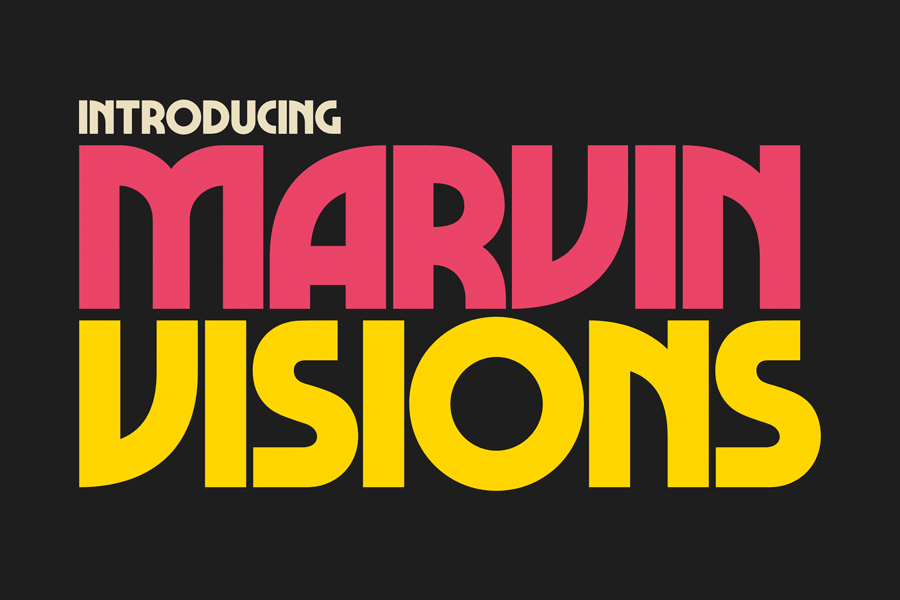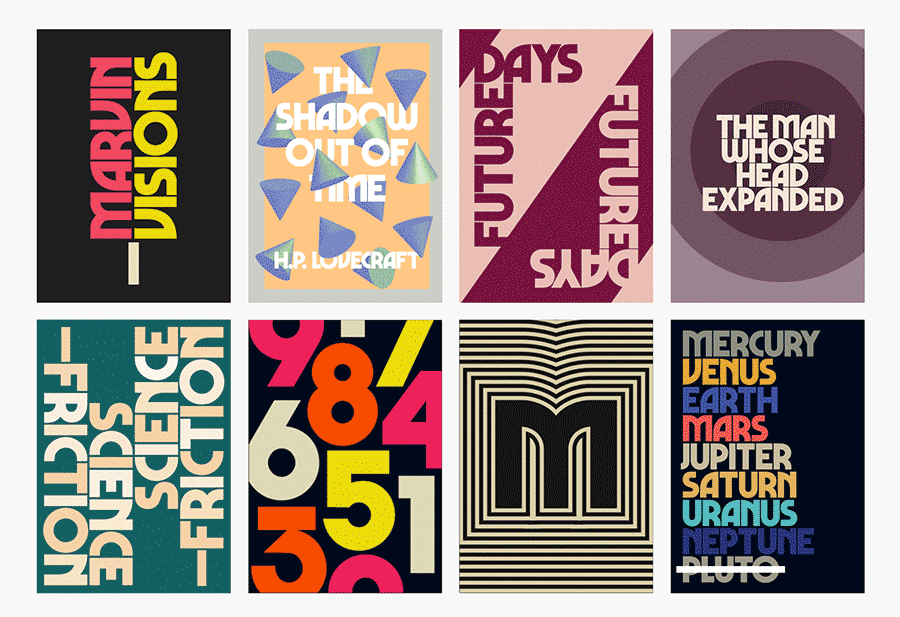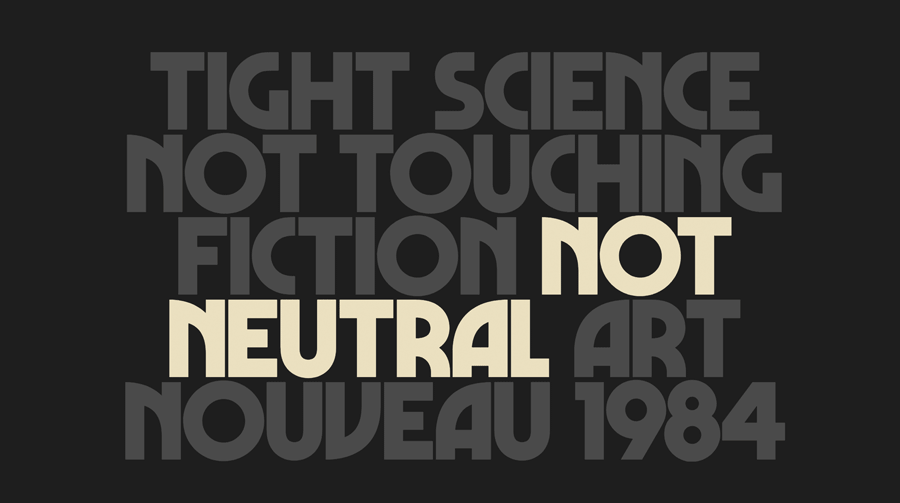
Marvin Visions is a more modern and consistent re-interpretation of Marvin font, a famous font face originally created by Michael Chave back in 1969. Now it has been revived as identity of Visions, a new science magazine. It comes with uppercase only because this font is meant for display use.